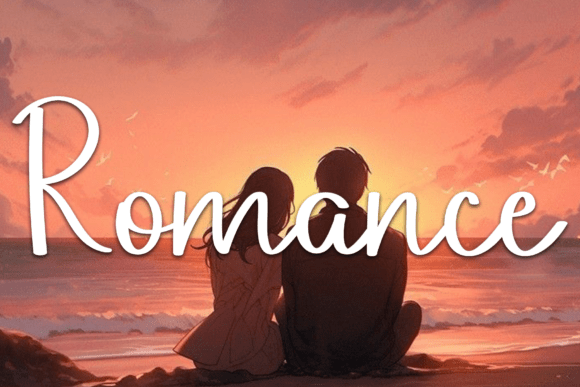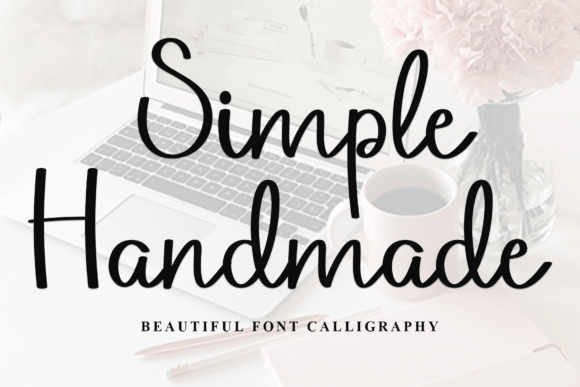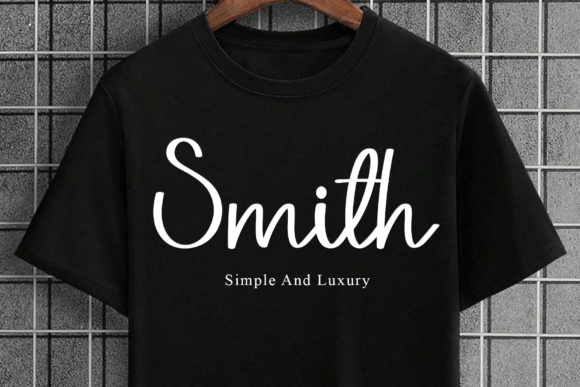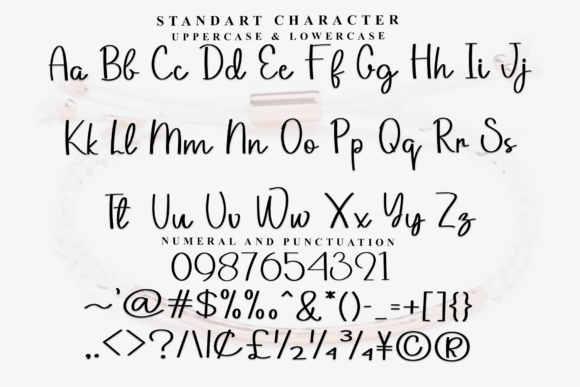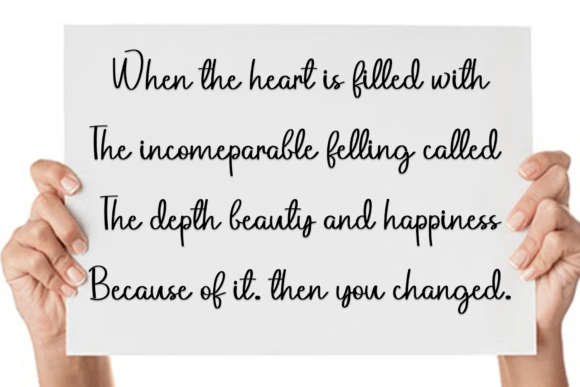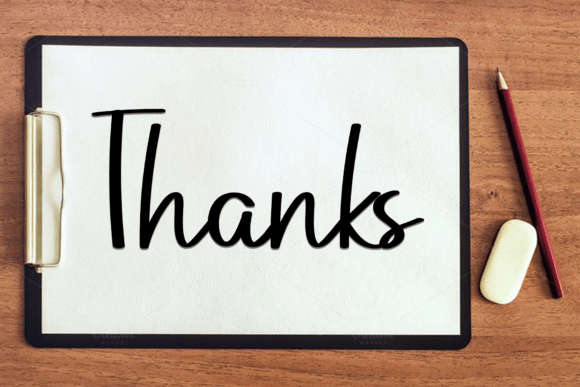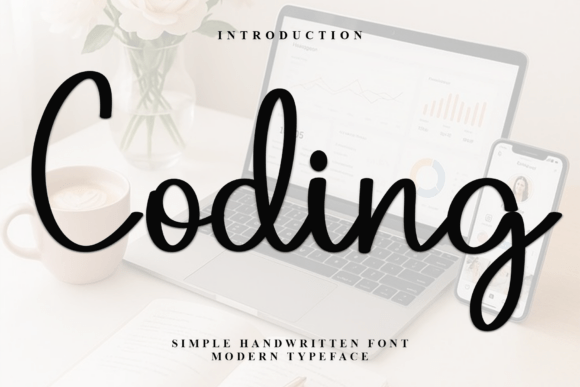
Coding Font: The Festive and Merry Typeface for Your Holiday Designs
As the holiday season approaches, designers and crafters are on the lookout for the perfect typography to add a touch of magic to their projects. Look no further than Coding Font, a festive and merry typeface that captures the spirit of the holidays. With its decorative elements and whimsical flair, Coding Font is the perfect addition to your design toolkit.
A Festive Font for Your Holiday Designs
Coding Font is a beautifully crafted typeface that is designed to bring a cheerful and nostalgic ambiance to your words. Its decorative elements and whimsical flair make it perfect for a variety of holiday-themed projects, including greeting cards, gift tags, and festive posters. Whether you’re a designer, crafter, or DIY enthusiast, Coding Font is the perfect choice for adding a touch of holiday cheer to your designs.
Key Features of Coding Font
- Decorative Elements: Coding Font features a range of decorative elements, including snowflakes, holly, and other festive motifs, that add a touch of magic to your designs.
- Whimsical Flair: The font’s whimsical flair makes it perfect for adding a playful touch to your designs, from festive headers to holiday-themed phrases.
Perfect for a Variety of Holiday Projects
Coding Font is perfect for a variety of holiday projects, including:
- Greeting Cards: Add a touch of festive cheer to your holiday greeting cards with Coding Font.
- Gift Tags: Create beautiful and unique gift tags with Coding Font’s decorative elements and whimsical flair.
- Holiday Posters: Create eye-catching holiday posters with Coding Font’s festive and merry typeface.
- Social Media Graphics: Add a touch of holiday cheer to your social media graphics with Coding Font.
Why Choose Coding Font?
There are many reasons why Coding Font is the perfect choice for your holiday designs. Here are just a few:
- Unique and Festive: Coding Font is a unique and festive typeface that will add a touch of magic to your designs.
- Perfect for Designers and Crafters: Coding Font is perfect for designers and crafters of all levels, from beginners to professionals.
If you’re looking for a festive and merry typeface to add a touch of magic to your holiday designs, look no further than Coding Font. With its decorative elements and whimsical flair, Coding Font is the perfect choice for a variety of holiday projects. Whether you’re a designer, crafter, or DIY enthusiast, Coding Font is the perfect addition to your design toolkit.